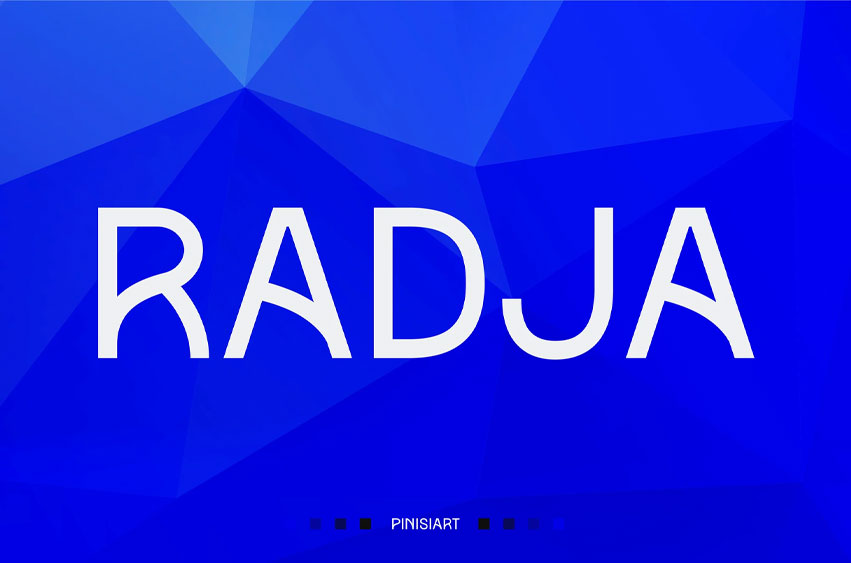
Radja Font
Radja Font is a bold geometric typeface with clean lines, consistent width, and a subtle tech-industrial tone—crafted for designers seeking clarity with authority. Its high legibility and modern vibe make it ideal for futuristic branding, UI-heavy applications, or dynamic editorial design. With circular counters and proportionate forms, Radja delivers a balanced appearance that feels both forward-thinking and grounded. Whether you’re crafting tech startup presentations or modern furniture branding, this font elevates messages through structure and clarity.
Radja thrives in creative environments where legibility and style go hand in hand. Whether used for branding, product packaging, tech posters, or app UI, it creates a refined, futuristic identity without feeling cold. The font brings a confident voice to layouts, helping teams and designers shape messaging that feels bold, current, and uniquely human.
• Geometric & Balanced
• Crafted with mathematically structured proportions for visual harmony
• Excellent performance across digital and print media
• Modern & Futuristic Aesthetic
• Ideal for technology brands, product launches, UI/UX interfaces
• Evokes precision, clarity, and trust
• Highly Versatile
• Usable in bold headlines, logos, editorial spreads, and professional slide decks
• Pairs well with minimalist or expressive design systems